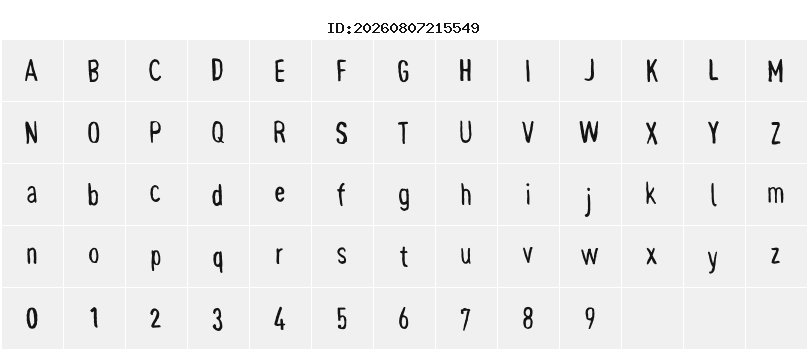
Pynkei_DIN Preview
• Font Name: Pynkei_DIN
• Full Font Name: Pynkei_DIN
• PostScript Name: Pynkei_DIN
• Character Count: 95
• Designer: Marko Maljković
• Manufacturer: Marko Maljković
About Pynkei_DIN.ttf
Pynkei_DIN.ttf is a modern, elegant sans-serif font designed for ultimate readability and visual harmony. Perfect for branding, headlines, web design, and print materials.